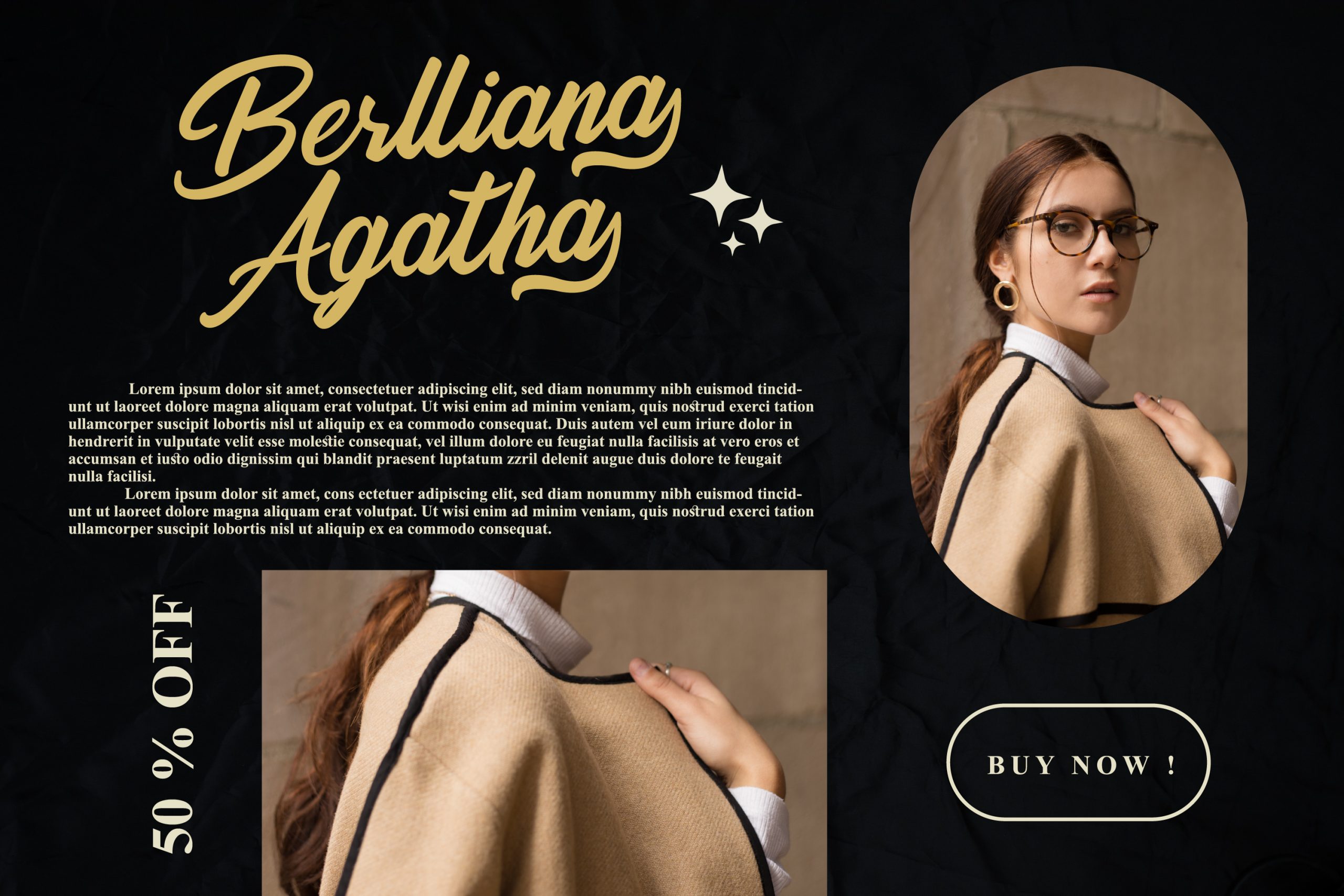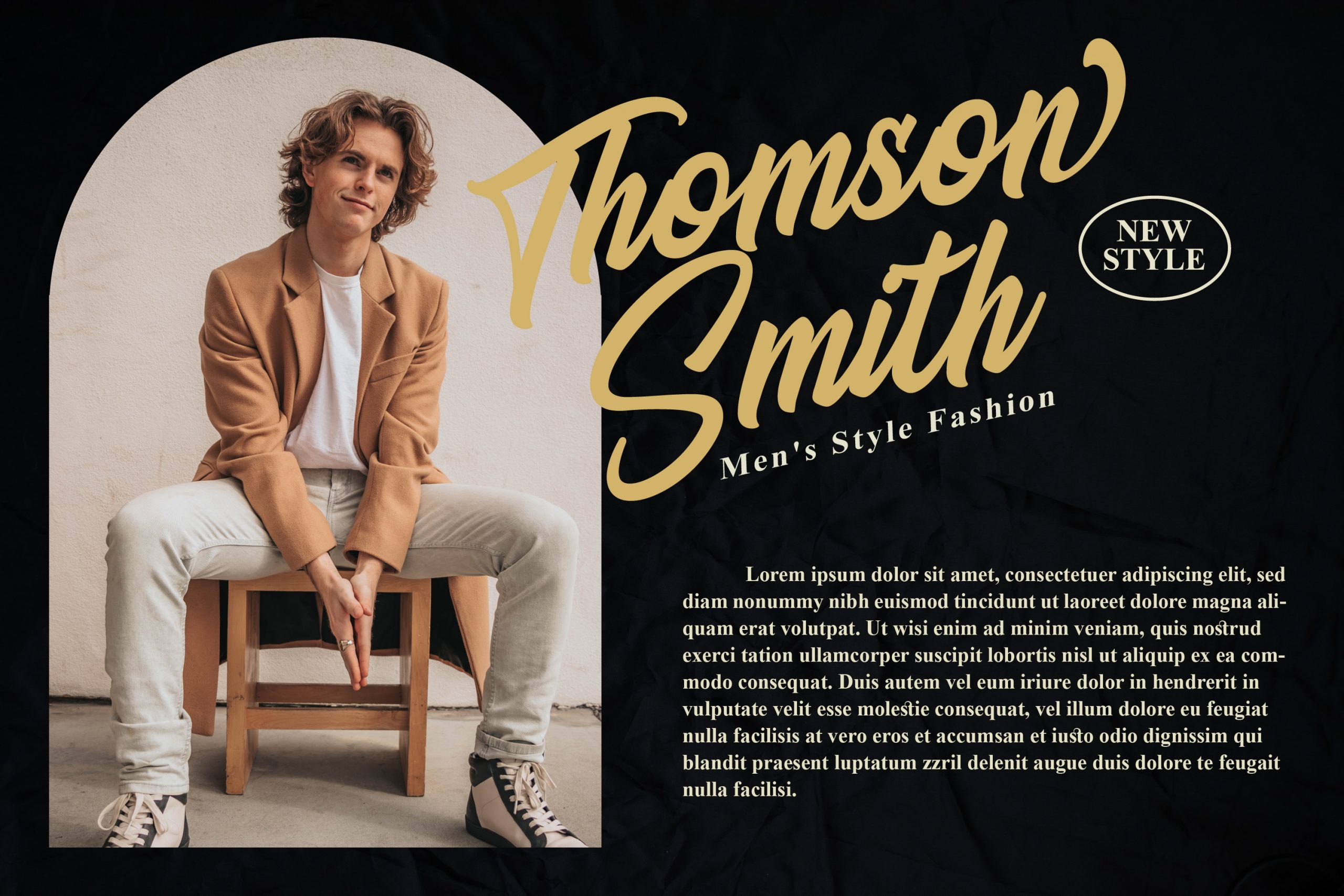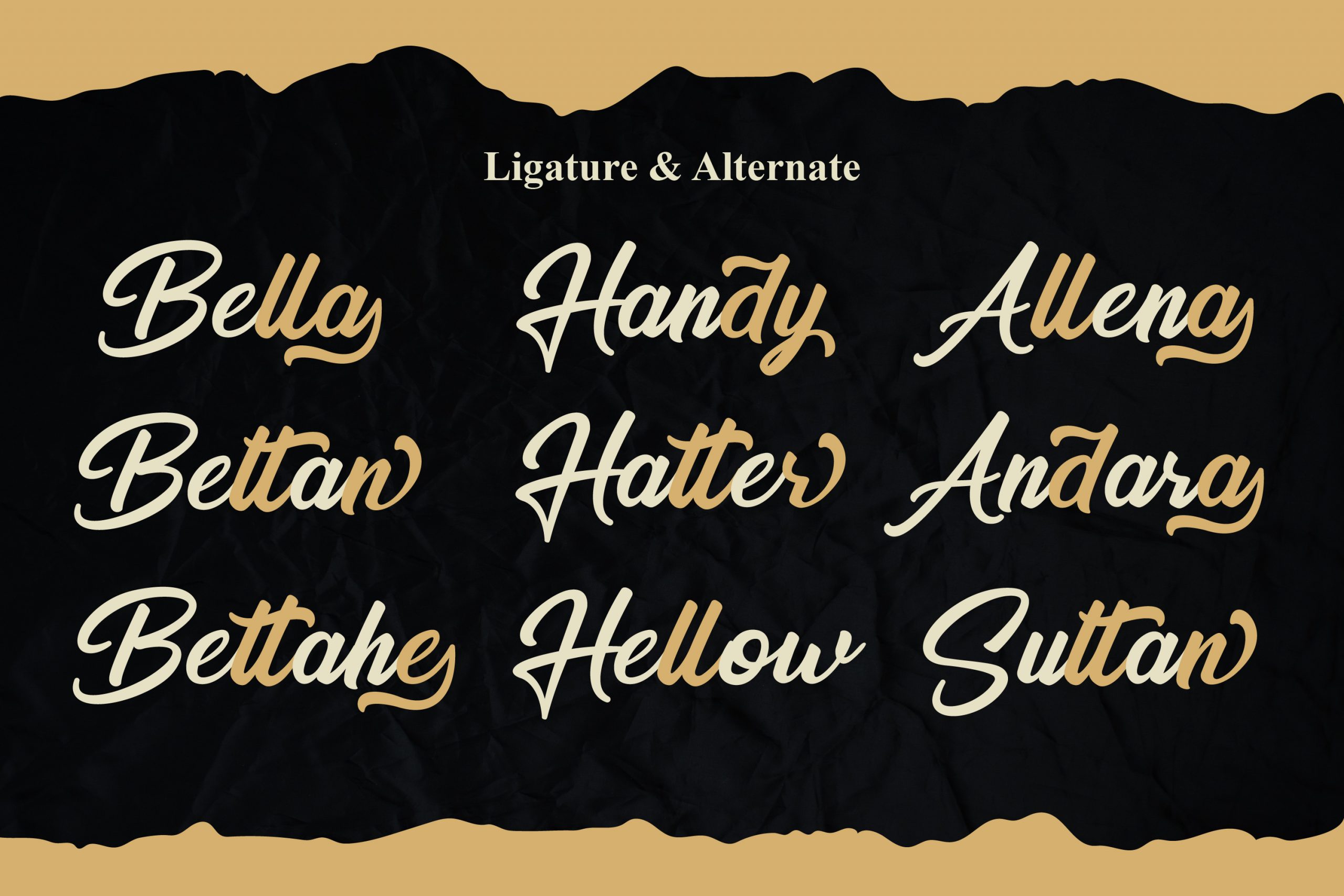
Routtage Script Font
This is an elegant script font with a contemporary atmosphere and impeccable form, inspired by timeless classic calligraphy. This font is PUA encoded which means you can access all of the glyphs and swashes with ease!